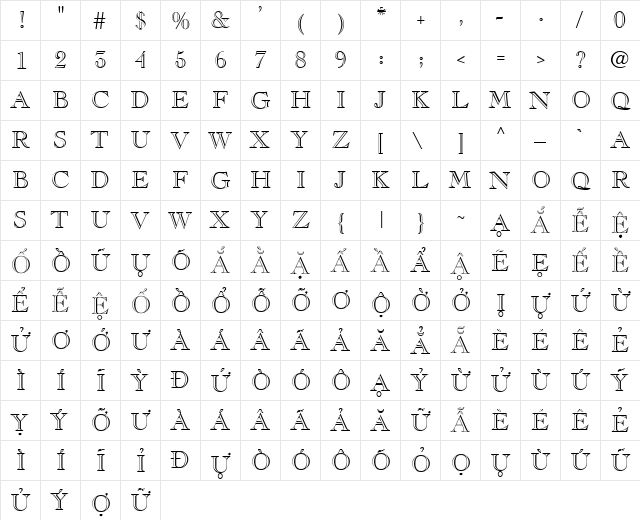
VI Cam Huong Hoa Normal
Design Context for VI Cam Huong Hoa Typeface
VI Cam Huong Hoa is a composed and adaptable typeface that performs quietly and consistently across a wide range of design contexts.